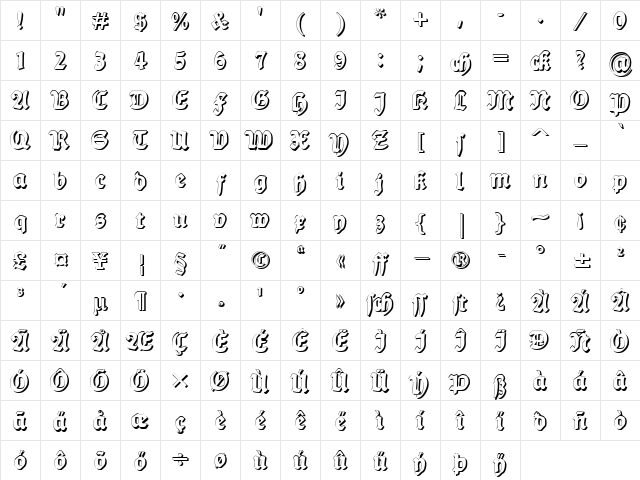
Complete DS Ballade Shadow Regular glyph index. Displaying only characters natively supported by DS Ballade Shadow Regular font.
DS Ballade Shadow is built around its visual character rather than neutral utility - its distinctive forms are designed to make an impression at display sizes.
Font Pairing: Pair with a clean neutral sans-serif for body copy to let DS Ballade Shadow's character lead without overwhelming the composition.
Pro Tip: Use DS Ballade Shadow exclusively at display sizes - it was designed to be seen, not read at length. Let a neutral companion handle body copy.